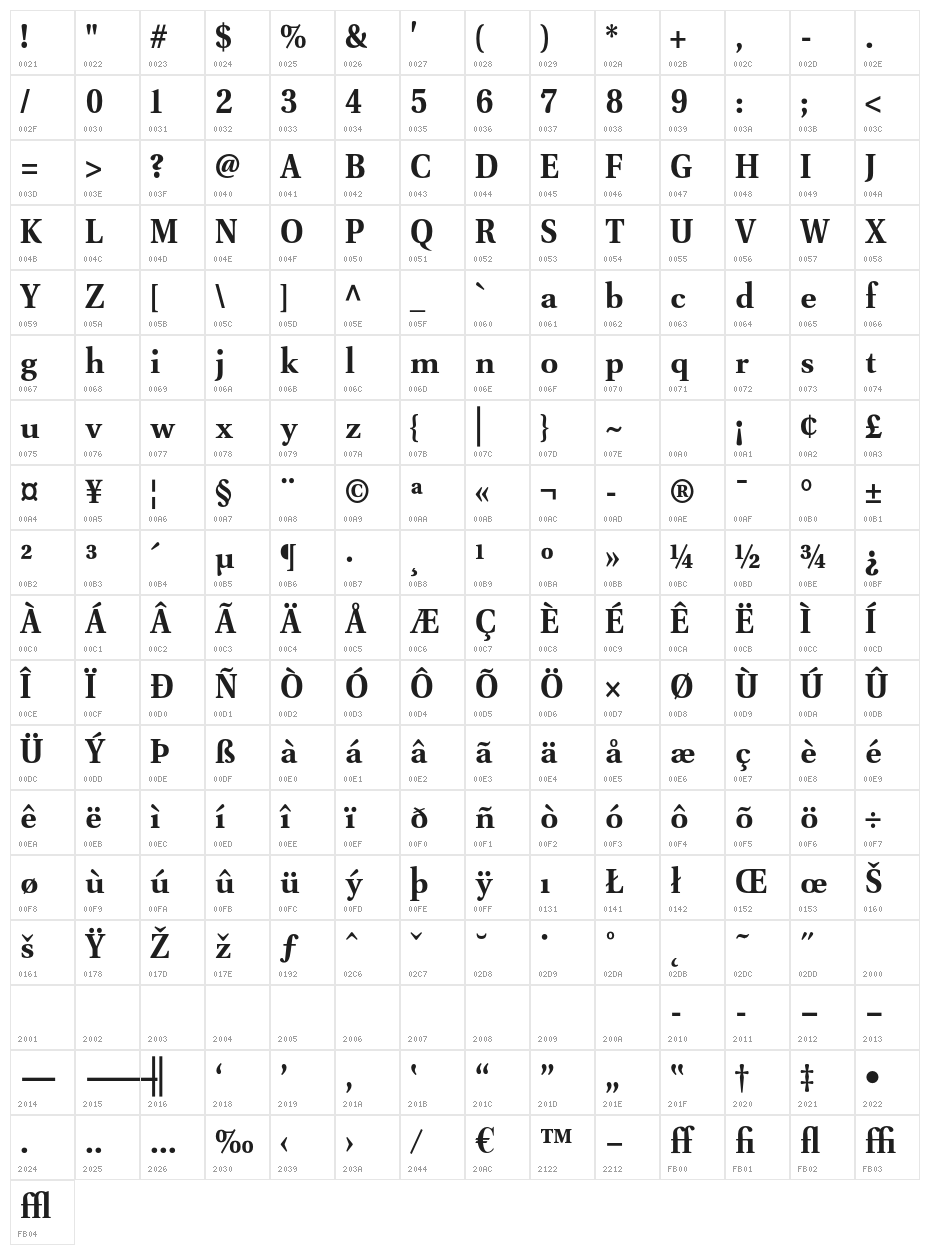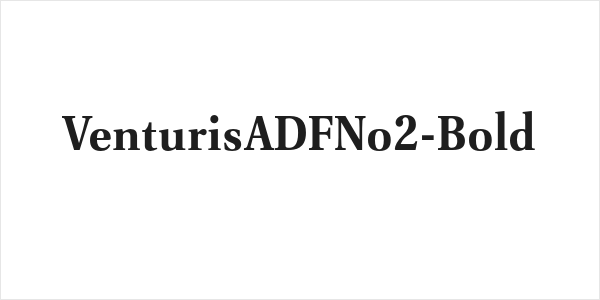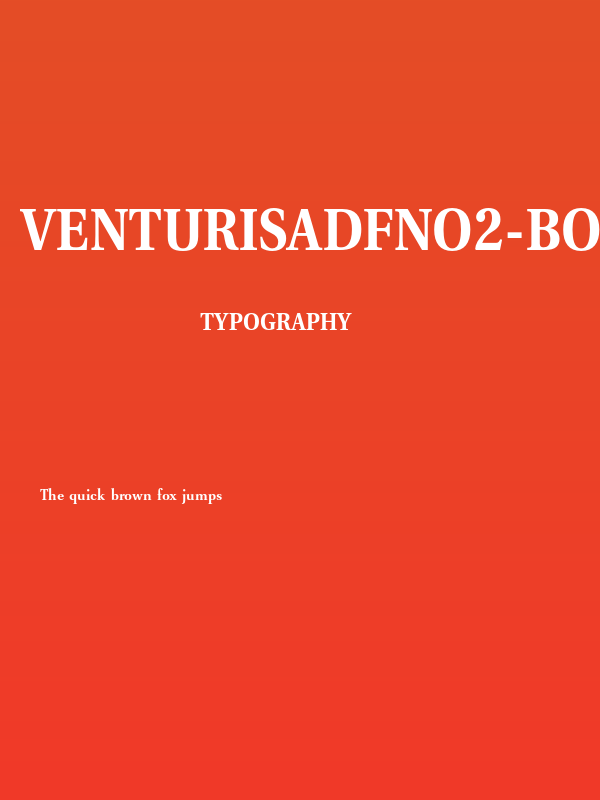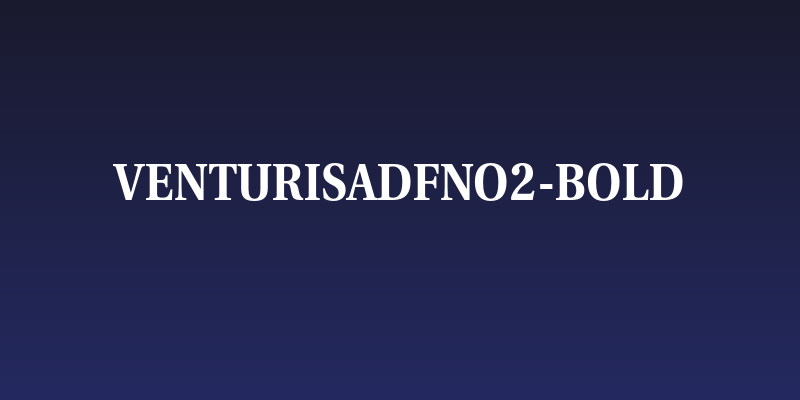
VenturisADFNo2-Bold Font
VenturisADFNo2-Bold Description
This font exhibits a classic serif style with bold, strong strokes that convey a sense of authority and tradition. The uppercase letters are well-proportioned, featuring prominent serifs that enhance readability. The lowercase letters maintain a consistent design, with a slightly rounded appearance that adds a touch of elegance. Numerals are clear and distinct, making them suitable for both display and text settings. The special characters are well-integrated, ensuring versatility across various applications. Overall, this font combines traditional serif elements with a modern boldness, making it ideal for impactful headlines and sophisticated branding.
| Proposed Projects | Ideal for book covers, editorial design, branding, and formal invitations. |